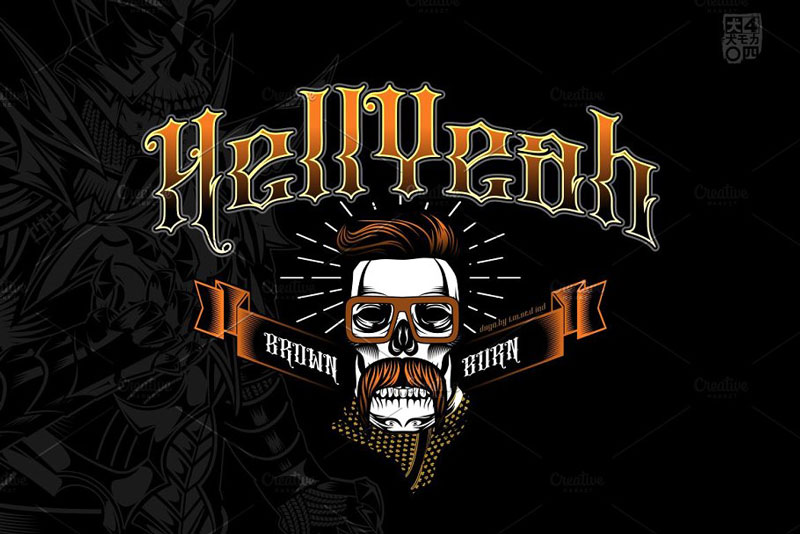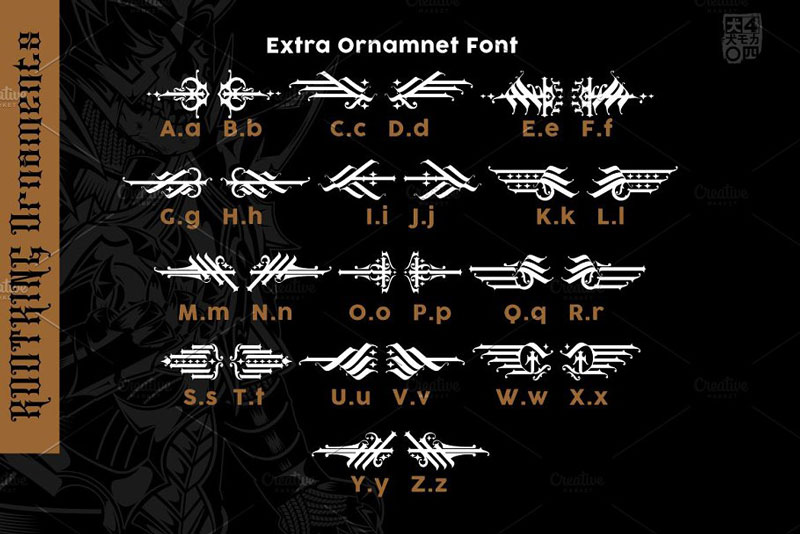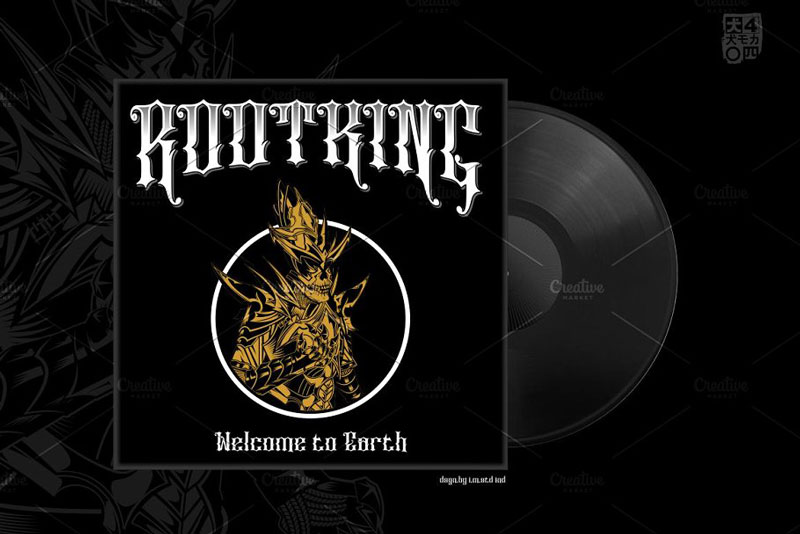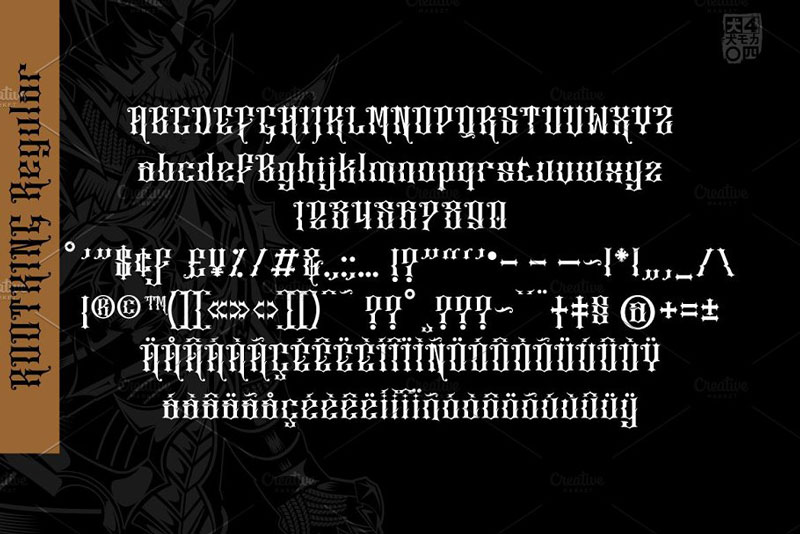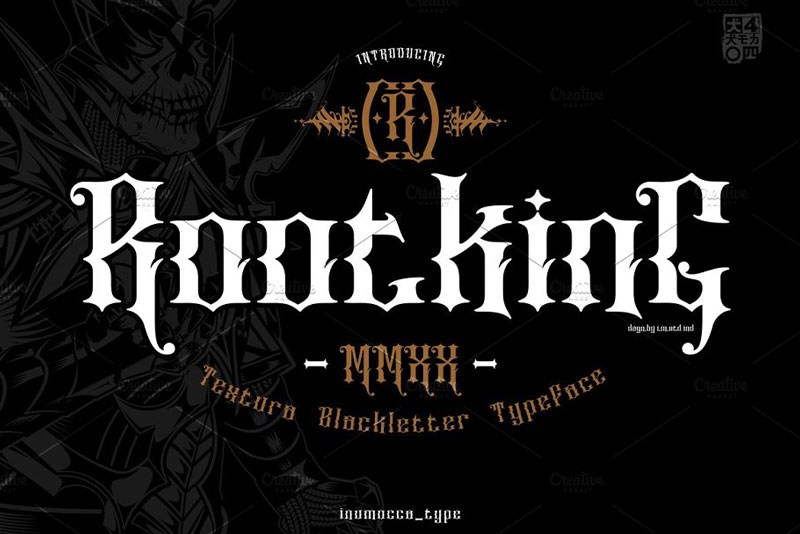
ROOTKING Stunning Blackletter Fonts 4942092
ROOTKING come from Gothic, Old English typography thin and thick strokes. the Textura Blackletter kinds, really strong, powerful. so they look best used for headings, logos, poster and sign. Blackletters have more recently become associated with beer label, Music, Book and many more
ROOTKING include
• Unique glyphs
• Multilingual Characters
• UPPERCASE
• Lowercase
• Numeric
• Symbol
• Punctuation Character